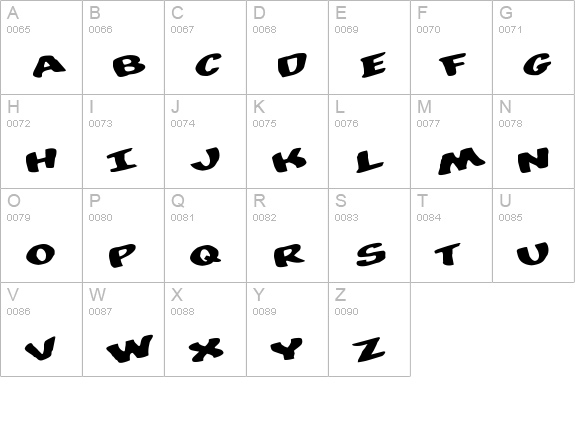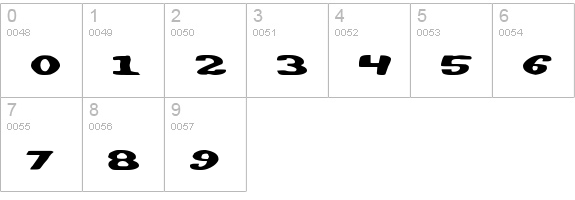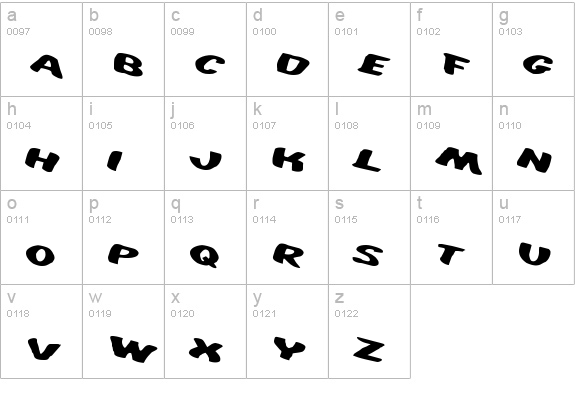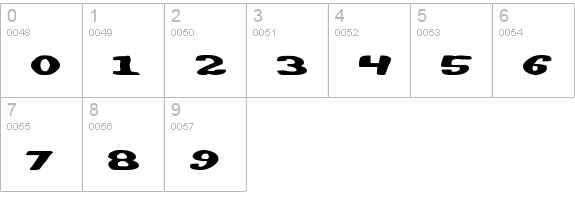
DiegoCon Scrambled Font Details
DiegoCon Scrambled font is a unique and eye-catching typeface that adds a playful touch to any design project. Its scrambled appearance gives a sense of excitement and creativity, making it perfect for use in artistic and dynamic designs. This font is freely available to download at FontsMarket.com, allowing you to easily incorporate it into your projects without any cost. Add a fun and energetic vibe to your designs with DiegoCon Scrambled font today!